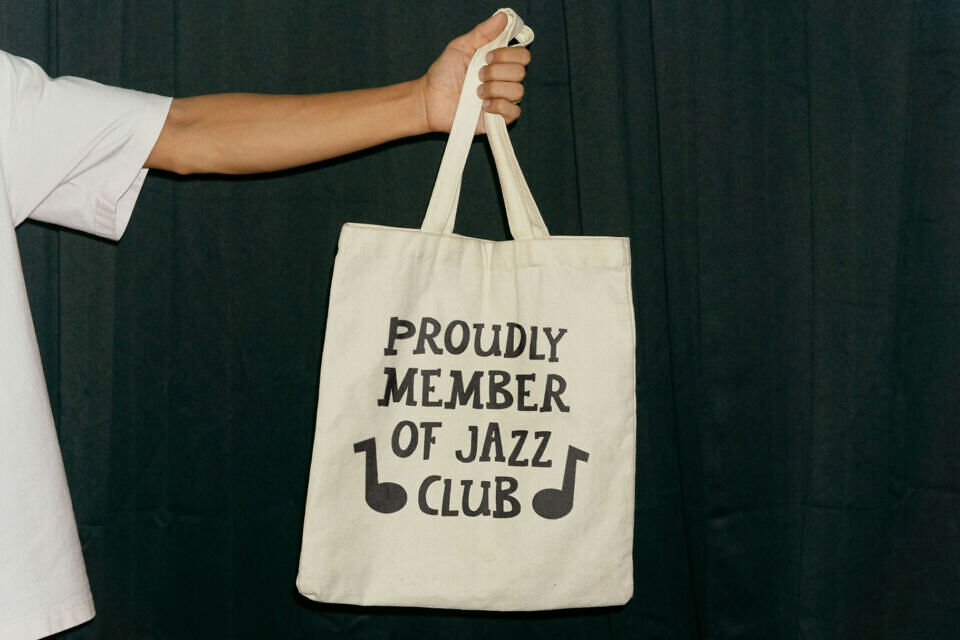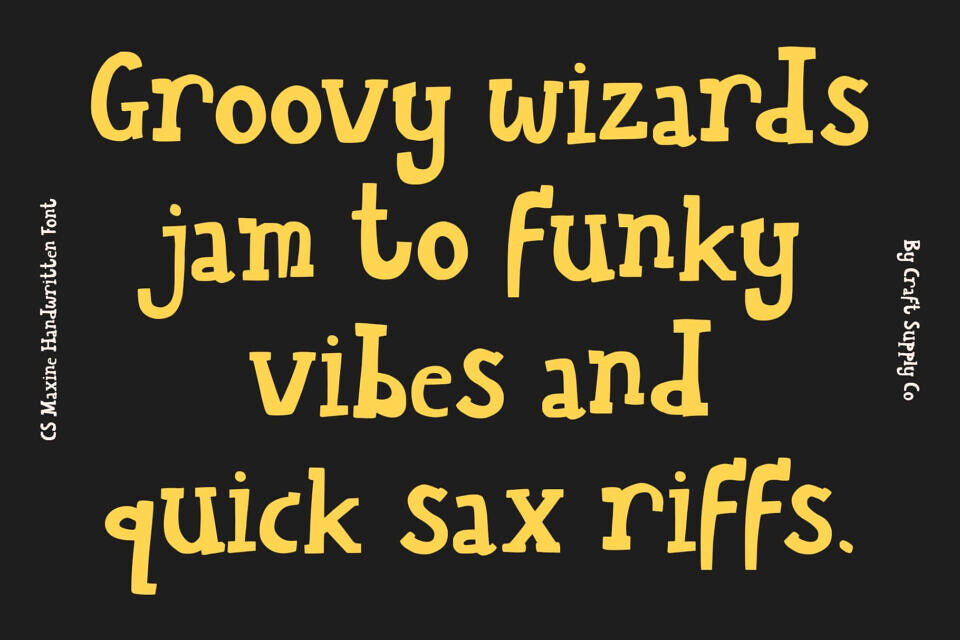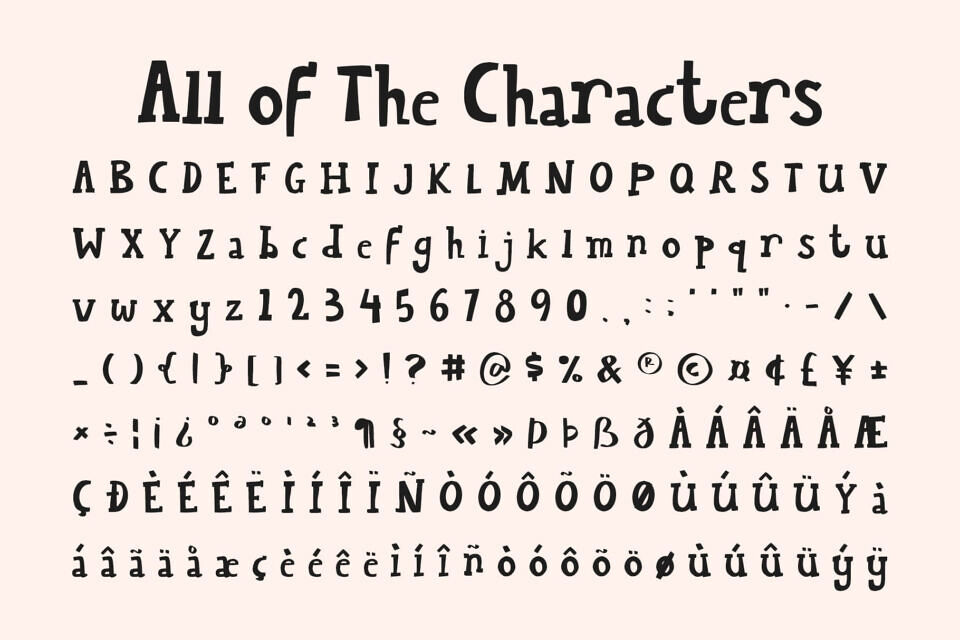
Maxine is a playful font that combines the structure of a slab serif with the warmth of handwritten lettering. Its naturally drawn texture brings authenticity and friendliness, making every word feel lively and expressive.
With its fusion of slab serif stability and casual handwritten energy, this font feels both contemporary and personable. It’s ideal for designs that want to communicate friendliness, creativity, and charm in a visually engaging way. This font shines in titles, posters, branding, and other creative projects where personality matters.